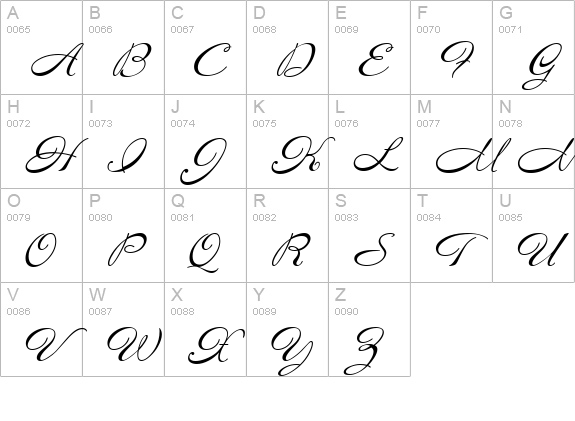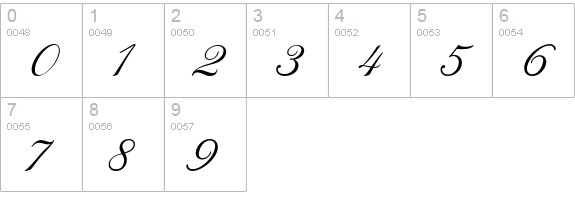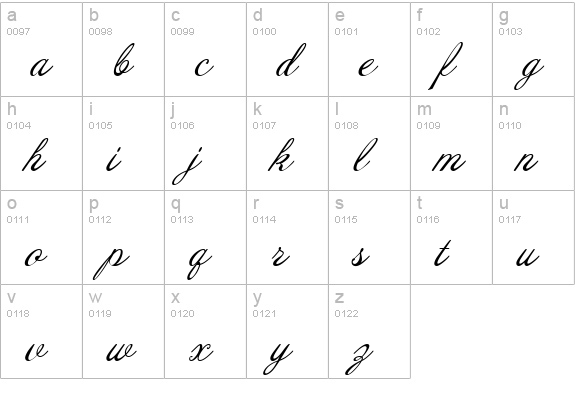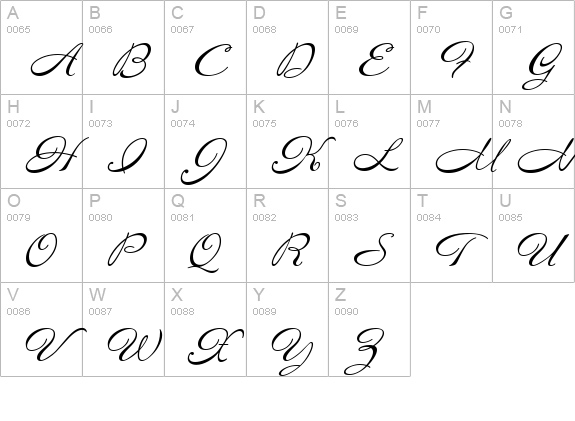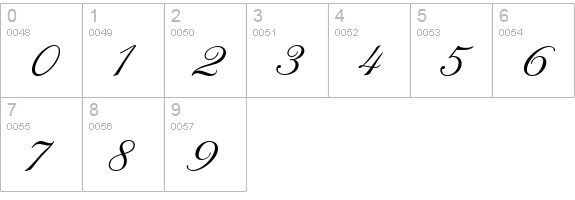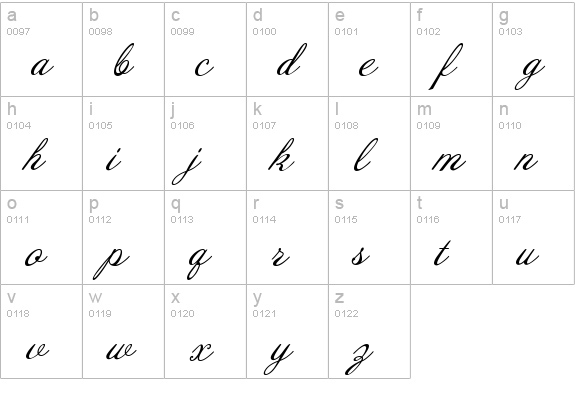
AnnabelleJF Font Details
AnnabelleJF font is a stunning and elegant typeface that exudes sophistication and charm. With its delicate curves and stylish flourishes, this font is perfect for adding a touch of class to any design project. Whether you're creating wedding invitations, branding materials, or social media graphics, AnnabelleJF font will surely make a lasting impression. The best part? AnnabelleJF font is completely free to download at FontsMarket.com! This means you can easily access this beautiful font and use it in your projects without any cost. Don't miss out on this amazing opportunity to elevate your designs with the timeless beauty of AnnabelleJF font. Download it now and start creating stunning visuals that will captivate your audience.